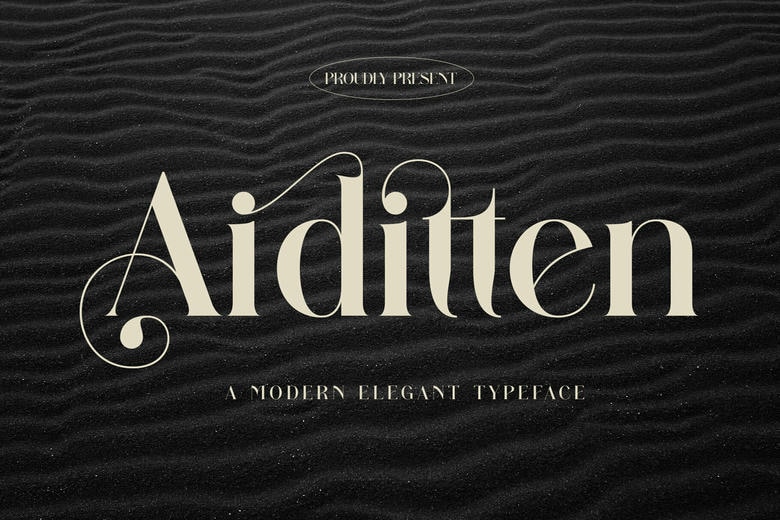
Aiditten Font
Aiditten is a modern serif font that conveys the sense of sophistication, clarity and modernity. Aiditten is unrestrained, yet sophisticated, especially with its smooth letterforms and elegant curves and it is ideal when you want to do an upscale branding, a wedding invitation, luxury packaging, and an upscale editorial and stylish logos.
The font is as classic and beautiful as it is modern and minimalistic, so it can be a perfect decision offering classical beauty and modern functionality without any conflicts between them.
Aiditten Serif Font